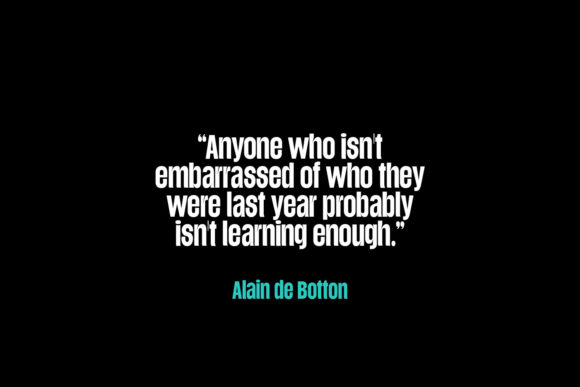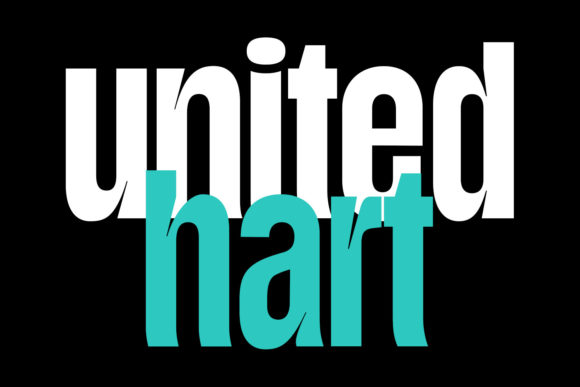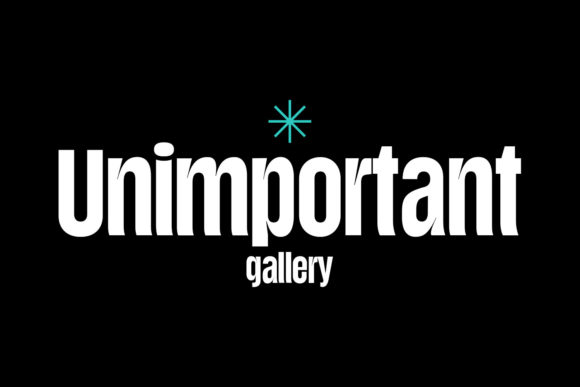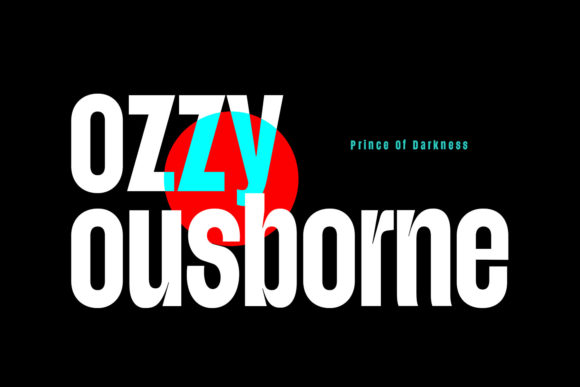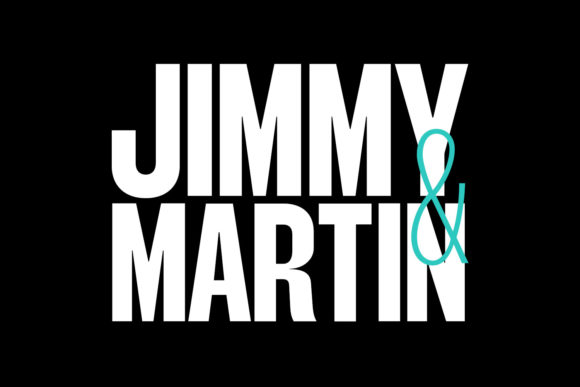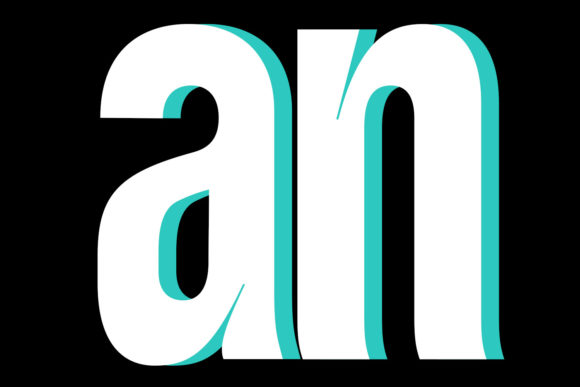
The Designer’s Delight: Uncovering the Power of Gratelos Font
I’ll never forget the time I was working on a logo design project for a trendy new cafe, and I just couldn’t seem to find the right font. The client wanted something modern, bold, and eye-catching, but everything I tried looked either too bland or too over-the-top. That’s when I stumbled upon Gratelos Font, and let me tell you, it was love at first sight! 💕
With its condensed bold stroke, fun characters, and unique ligatures, Gratelos is the perfect font for designers, crafters, and creative hobbyists looking to add a touch of modern flair to their work. In this article, we’ll dive into the world of Gratelos, exploring its features, uses, and some practical tips on how to make the most of this amazing font.
An Honest Review: What I Love (and What I Don’t)
- ✅ Versatility: Gratelos is an incredibly versatile font that works beautifully for logo design, social media posts, movie titles, book titles, and even long texts.
- ✅ Unique Ligatures: The font’s unique ligatures add a touch of personality to any text, making it stand out from the crowd.
- ✅ Fun Characters: Gratelos comes with a range of fun and playful characters that are perfect for adding a bit of whimsy to your designs.
- ✅ Modern Aesthetic: The font’s modern sans-serif design makes it perfect for projects that require a clean and contemporary look.
The Not-So-Good Stuff 🤔
- ⚠️ Limited Serif Options: As a sans-serif font, Gratelos may not be the best choice for projects that require a traditional serif look.
- ⚠️ Some Kerning Issues: Like any font, Gratelos may require some manual kerning adjustments to ensure optimal spacing and readability.
The Story Behind Gratelos: Designer Inspiration
While the actual designer behind Gratelos remains a mystery, it’s clear that they were inspired by the world of modern design and typography. With its bold and condensed strokes, fun characters, and unique ligatures, Gratelos is the perfect reflection of contemporary design trends.
Q: What type of projects is Gratelos best suited for?
A: Gratelos is an incredibly versatile font that’s perfect for logo design, social media posts, movie titles, book titles, and even long texts.
Q: Is Gratelos a script font?
A: No, Gratelos is a sans-serif font with a modern and bold aesthetic.